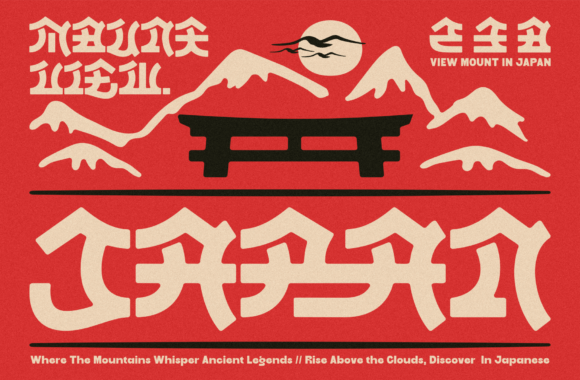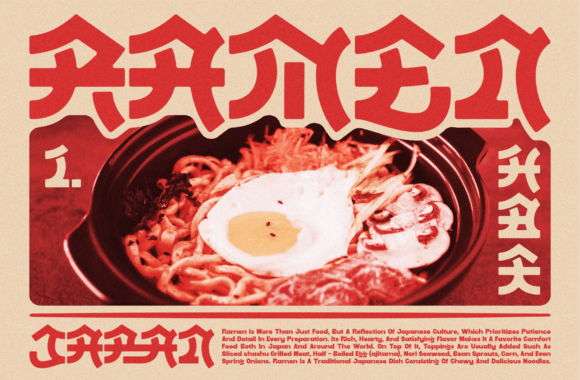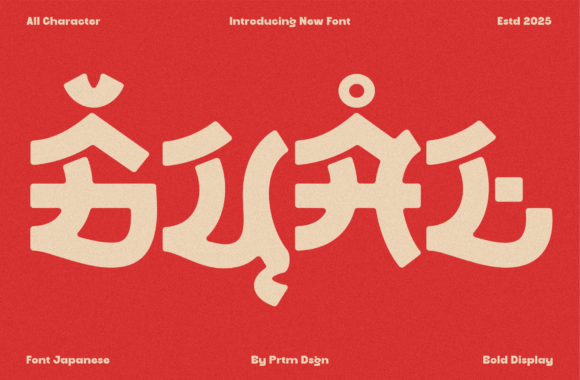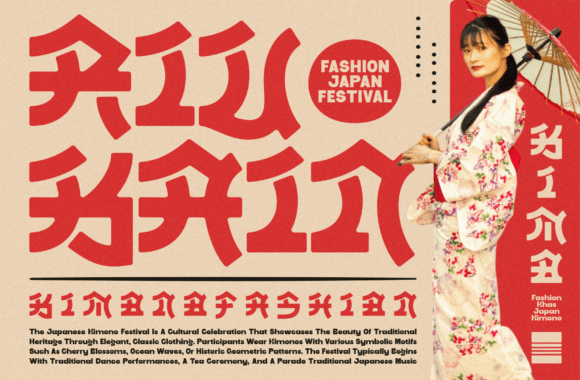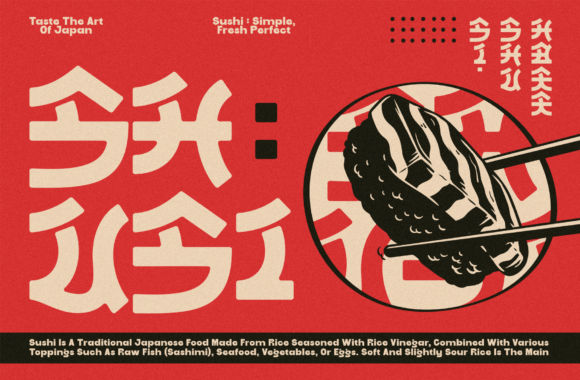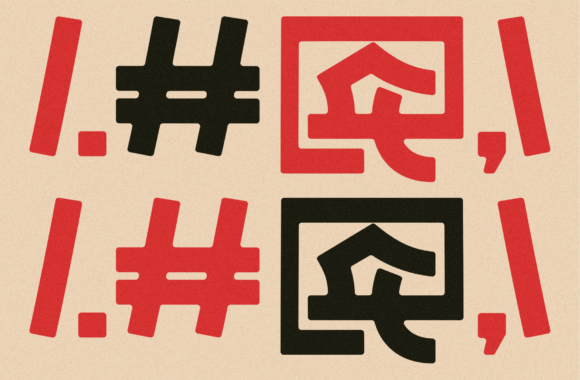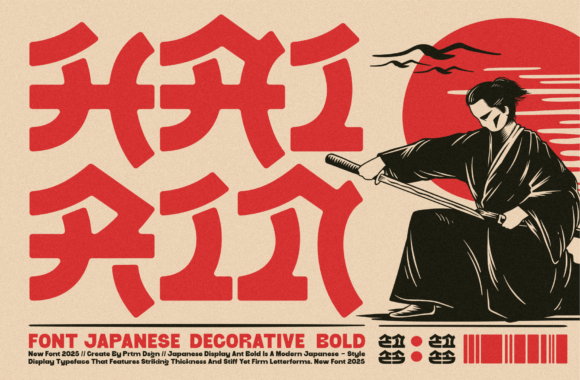
Introducing Hairin Font: A Bold and Decorative Typeface Inspired by Japanese Aesthetics
In the world of typography, fonts play a crucial role in conveying the tone and personality of a brand or design. For designers and crafters looking for a unique and authentic Japanese aesthetic with a modern twist, Hairin Font is an excellent choice. This bold and decorative typeface is inspired by traditional Japanese aesthetics and bold typographic constructions, making it perfect for projects that require a strong and traditional feel.
Design Inspiration
Hairin Font draws inspiration from traditional Japanese calligraphy, also known as shodou. Its characters adopt a geometric structure reminiscent of Japanese calligraphy, but adapted into modern Latin letterforms. This blend of traditional and modern design elements offers a balance between cultural references and contemporary design. The font’s creator aimed to evoke the atmosphere of the samurai era, a period known for its bold and elegant aesthetics.
Hairin Font boasts several key features that make it an attractive choice for designers and crafters:
- Geometric structure: The font’s characters are built using a geometric structure that echoes traditional Japanese calligraphy.
- Thick, square outline: The font’s thick, square outline ensures high legibility at large sizes, making it perfect for posters, headlines, and branding.
- Ornamental touches: Hairin Font features ornamental touches that evoke the elegance and sophistication of traditional Japanese design.
- Structured flow: The font’s structured flow adds to its sense of tradition and authority.
Use Cases
Hairin Font is an excellent choice for a variety of design projects, including:
- Posters and flyers: The font’s bold and decorative nature makes it perfect for eye-catching posters and flyers.
- Headlines and titles: Hairin Font’s thick, square outline ensures high legibility at large sizes, making it ideal for headlines and titles.
- Branding and logos: The font’s unique blend of traditional and modern design elements makes it an attractive choice for branding and logos.
- Packaging design: Hairin Font’s ornamental touches and structured flow make it suitable for packaging design, particularly for products that require a traditional or cultural feel.
Why Choose Hairin Font?
For designers and crafters looking for a font that exudes a strong, traditional, and bold feel, Hairin Font is an excellent choice. Here are a few reasons why:
- Unique aesthetic: Hairin Font offers a unique blend of traditional Japanese aesthetics and modern design elements.
- High legibility: The font’s thick, square outline ensures high legibility at large sizes.
- Versatility: Hairin Font is suitable for a variety of design projects, from posters and flyers to branding and packaging design.
In conclusion, Hairin Font is a bold and decorative typeface that offers a unique blend of traditional Japanese aesthetics and modern design elements. Its geometric structure, thick, square outline, and ornamental touches make it perfect for designers and crafters looking for a font that exudes a strong, traditional, and bold feel. With its high legibility and versatility, Hairin Font is an excellent choice for a variety of design projects.
Whether you’re a designer looking for a unique font for your next project or a crafter seeking inspiration for your handmade creations, Hairin Font is definitely worth exploring.